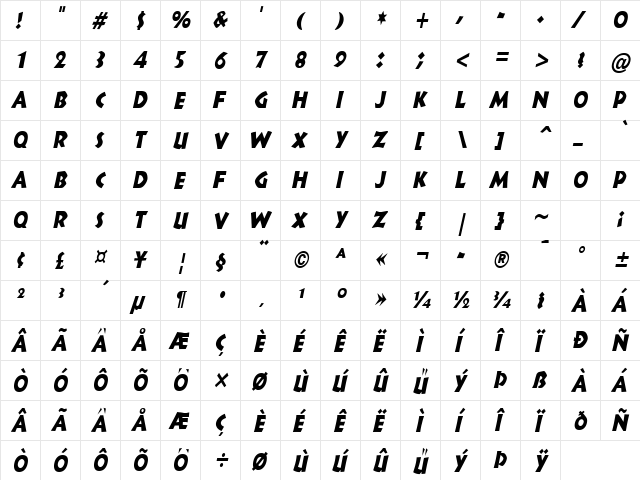
Indy-Condensed Italic
Design Context for Indy-Condensed Typeface
Indy-Condensed offers clean, dependable letterforms without strong stylistic allegiance, making it a practical choice for designers who need flexibility. The dynamic lean of this cut emphasises speed and emphasis in any layout. Its narrow stance lets it pack a punch even in space-constrained designs.
Pro Tip: Use Indy-Condensed for emphasis, pull quotes, and subheadings where its slanted energy can add rhythm to the layout.